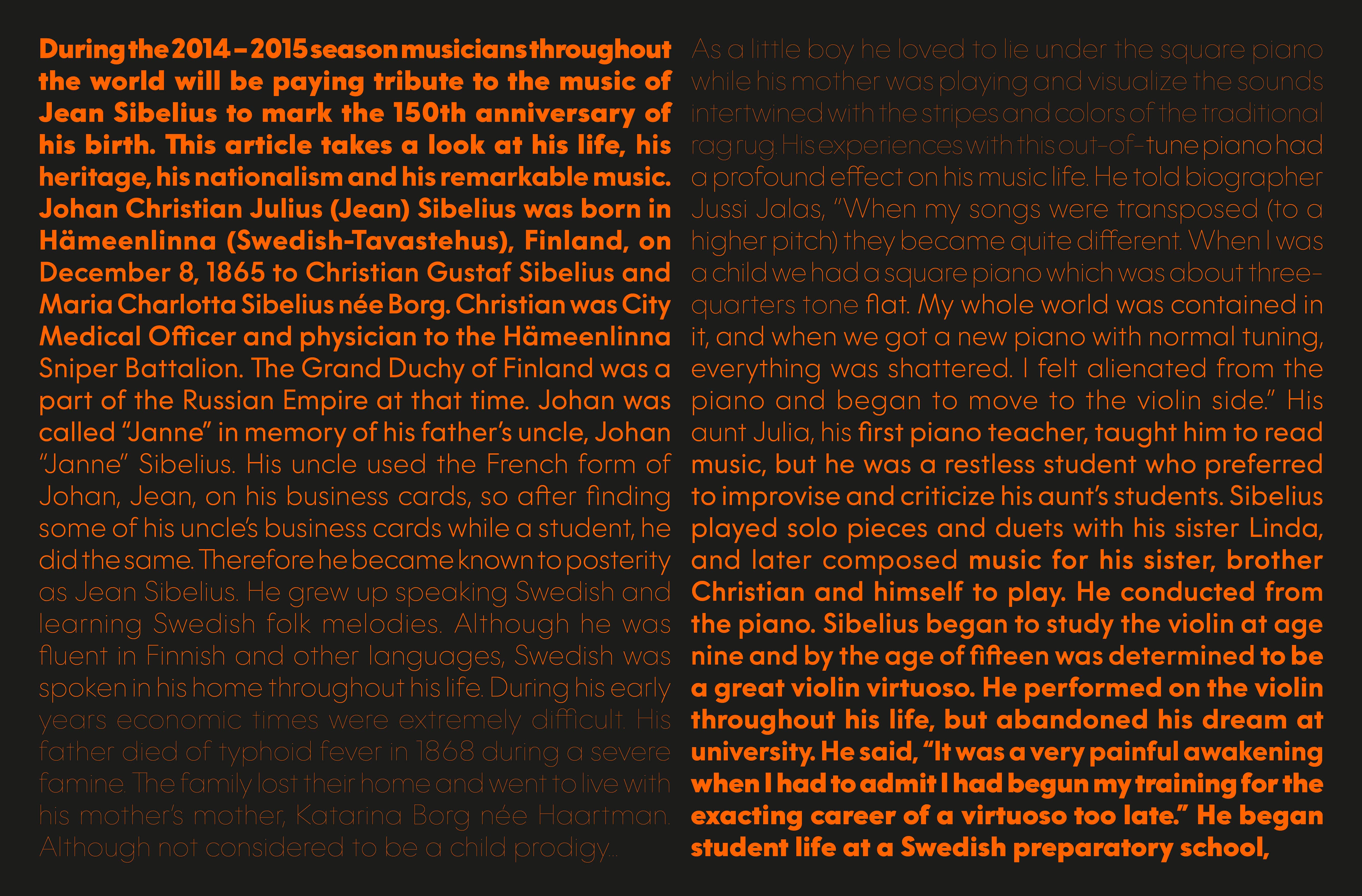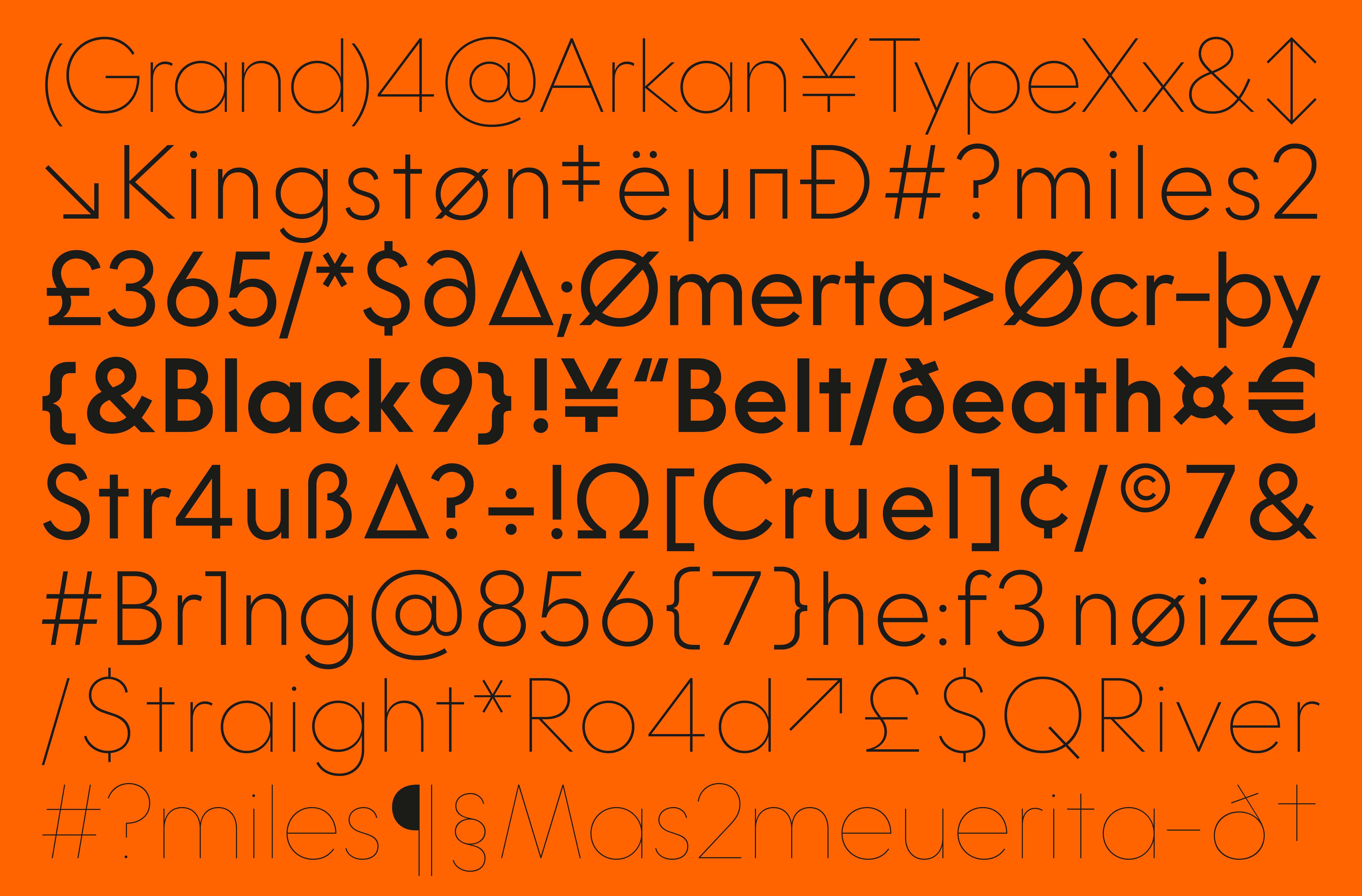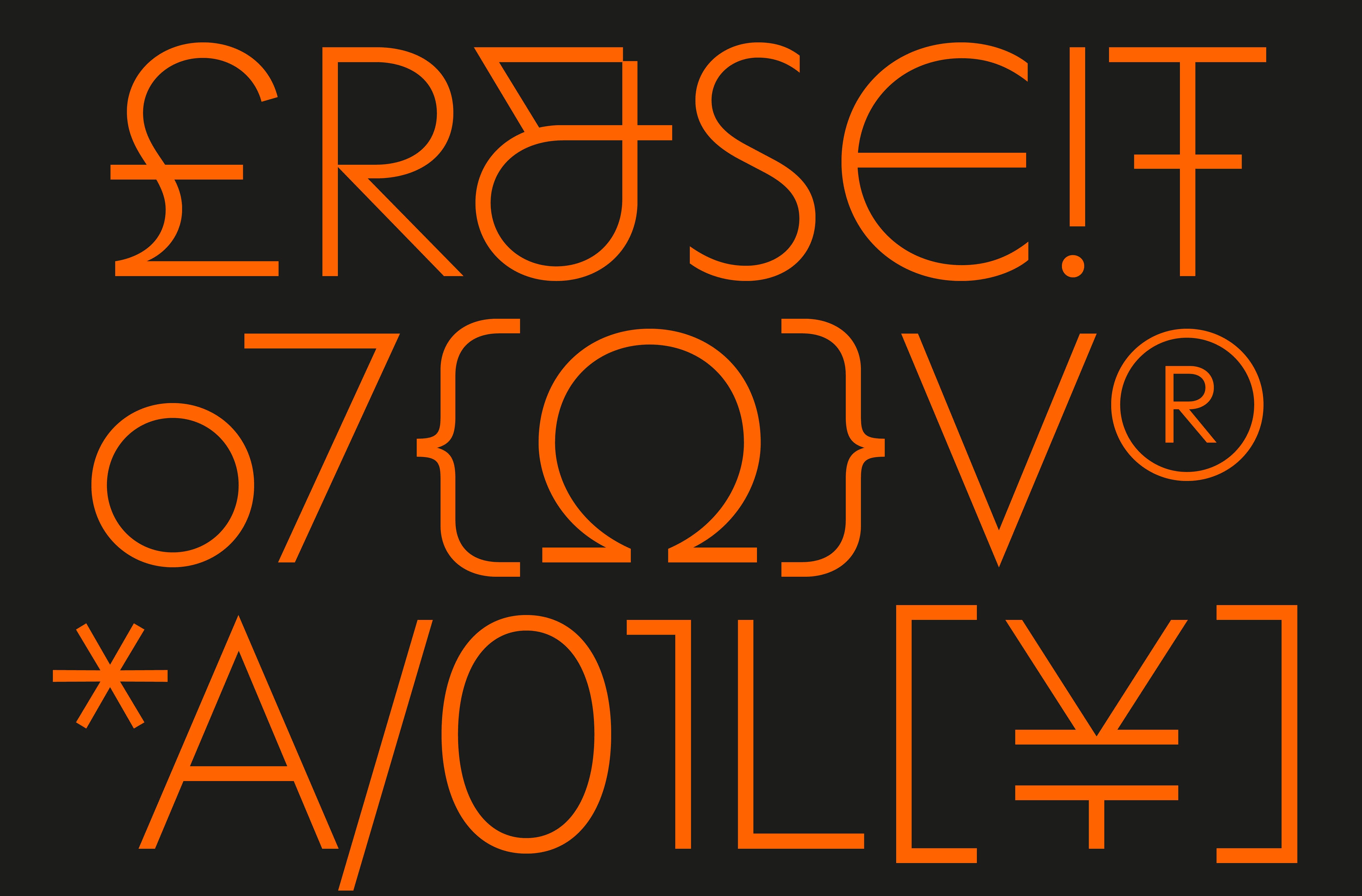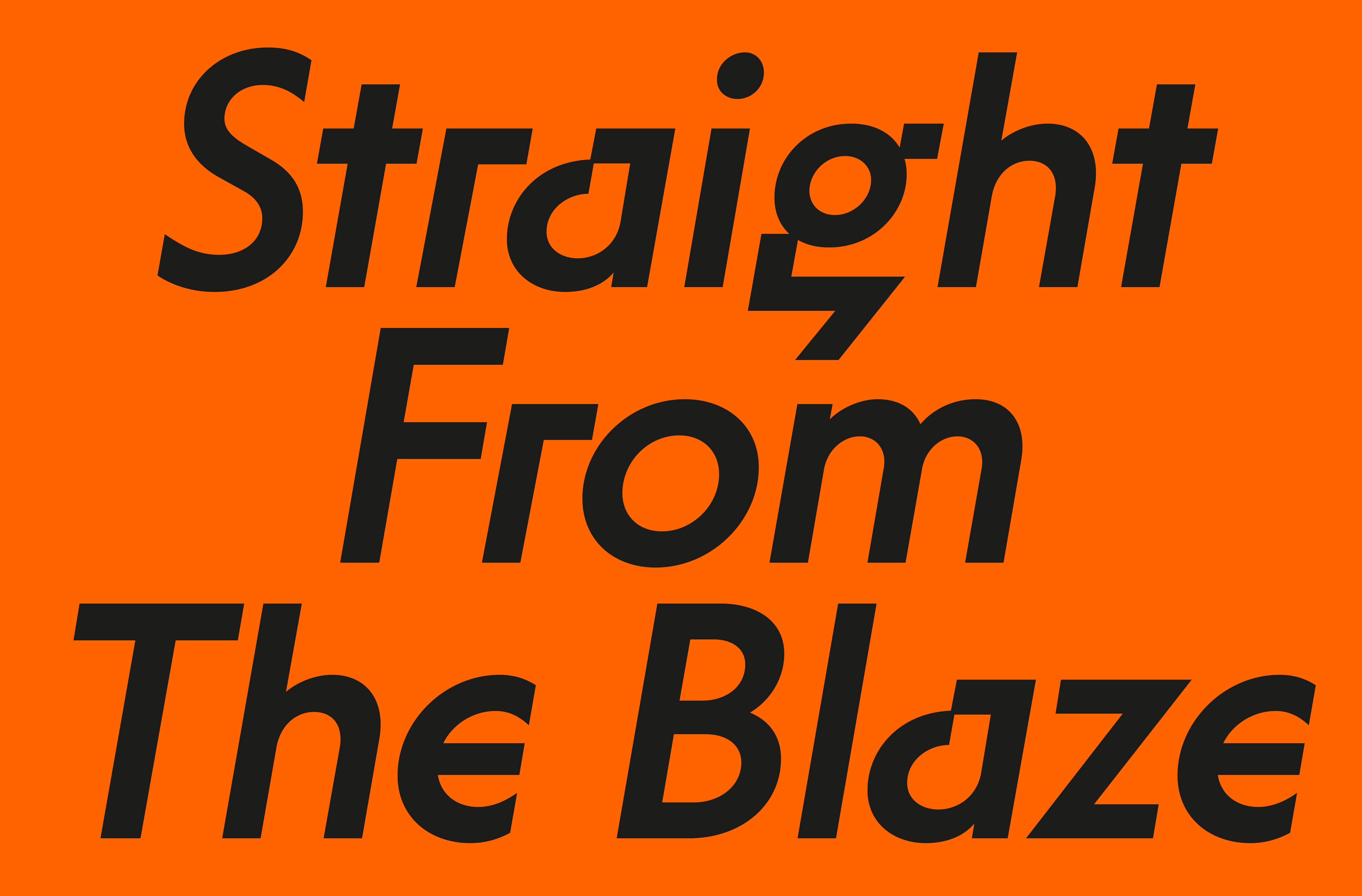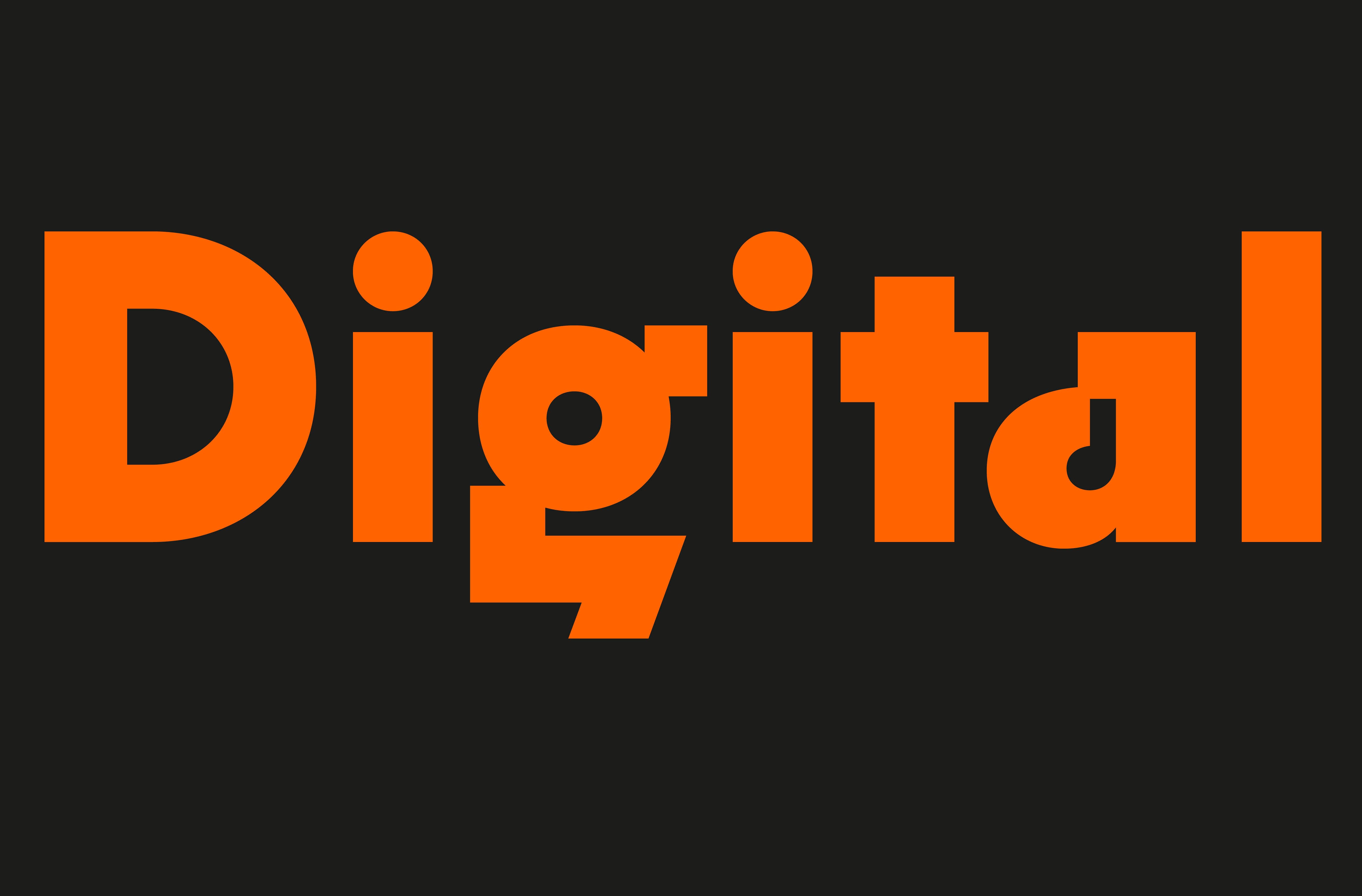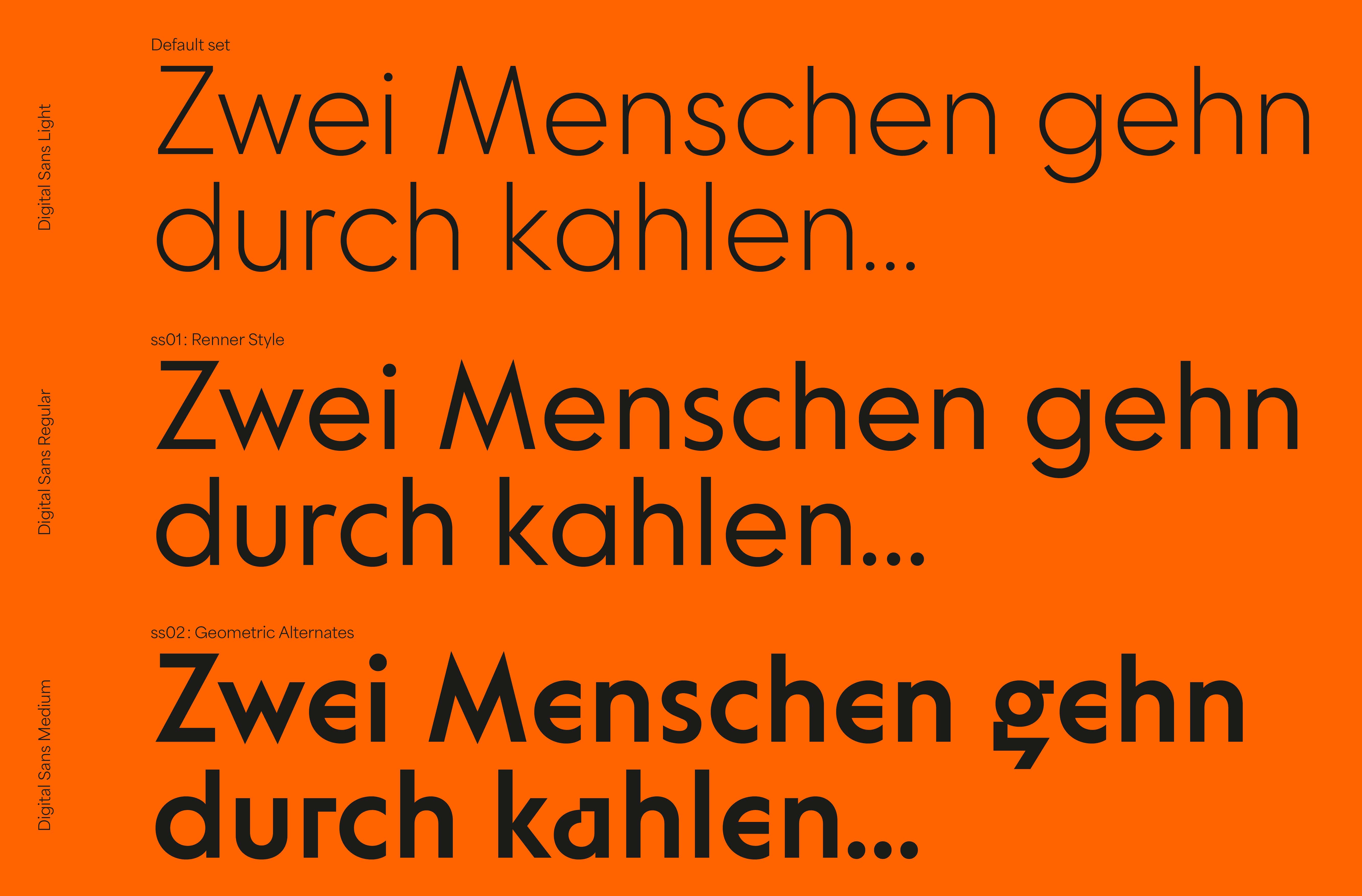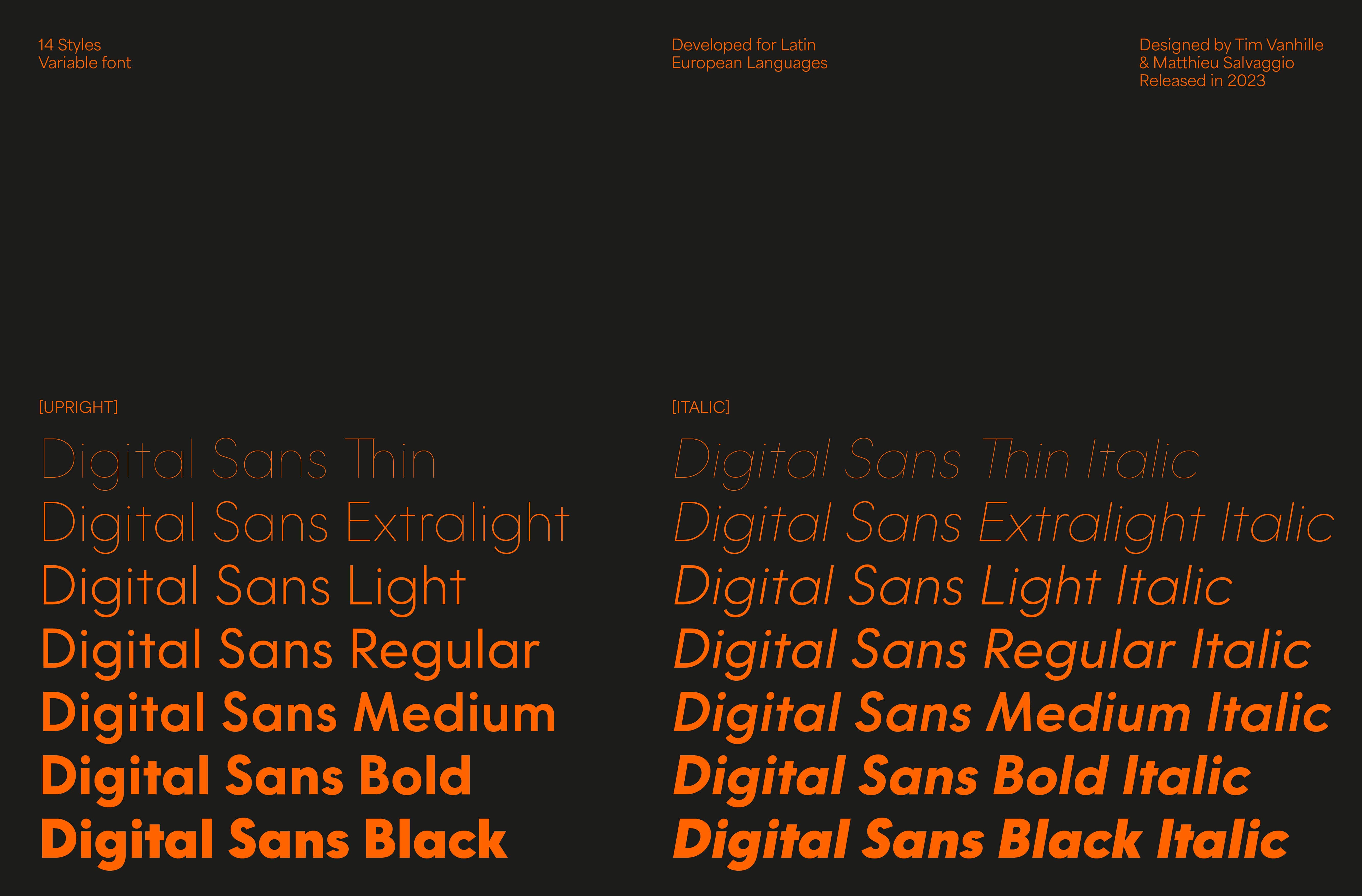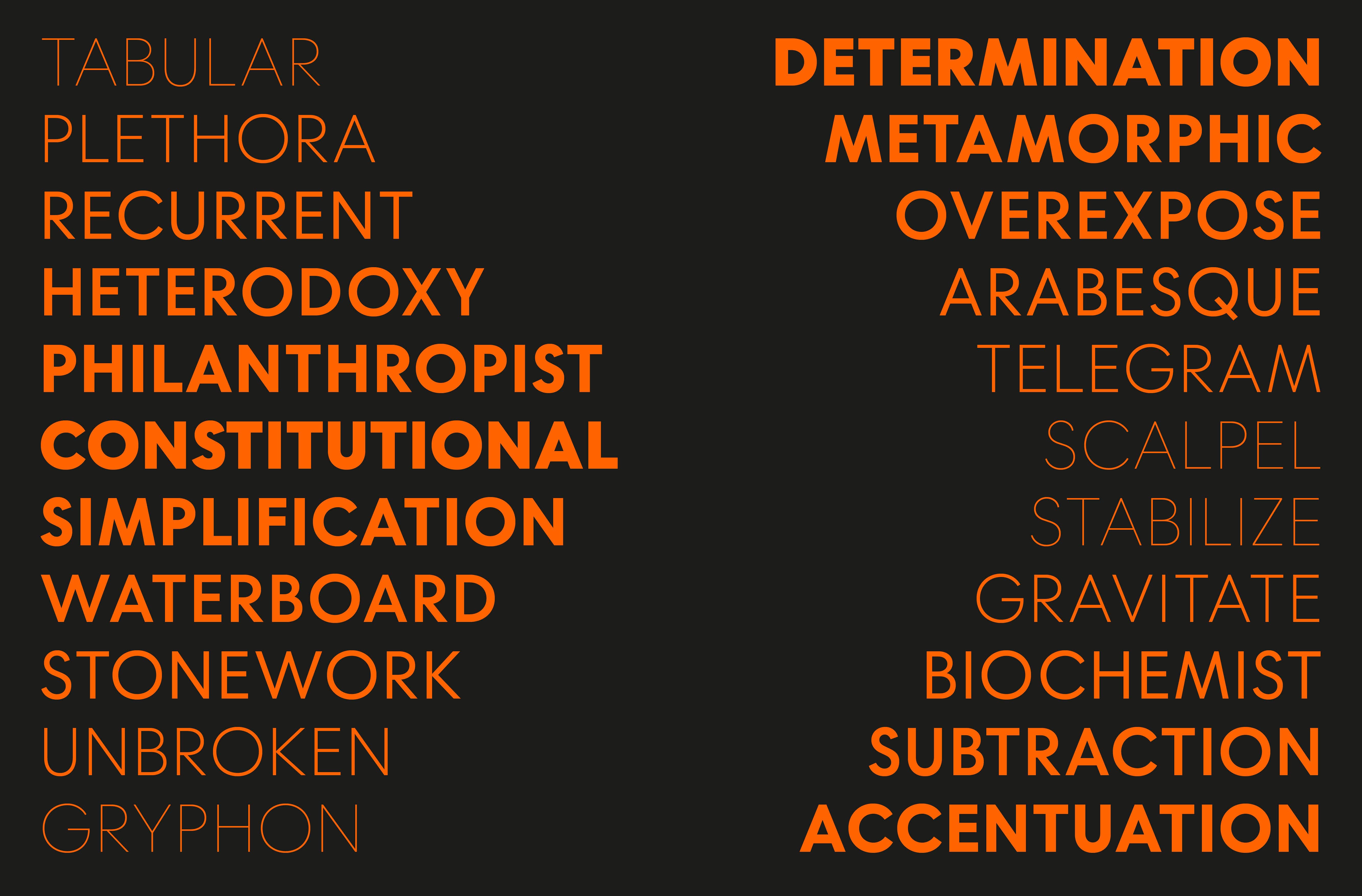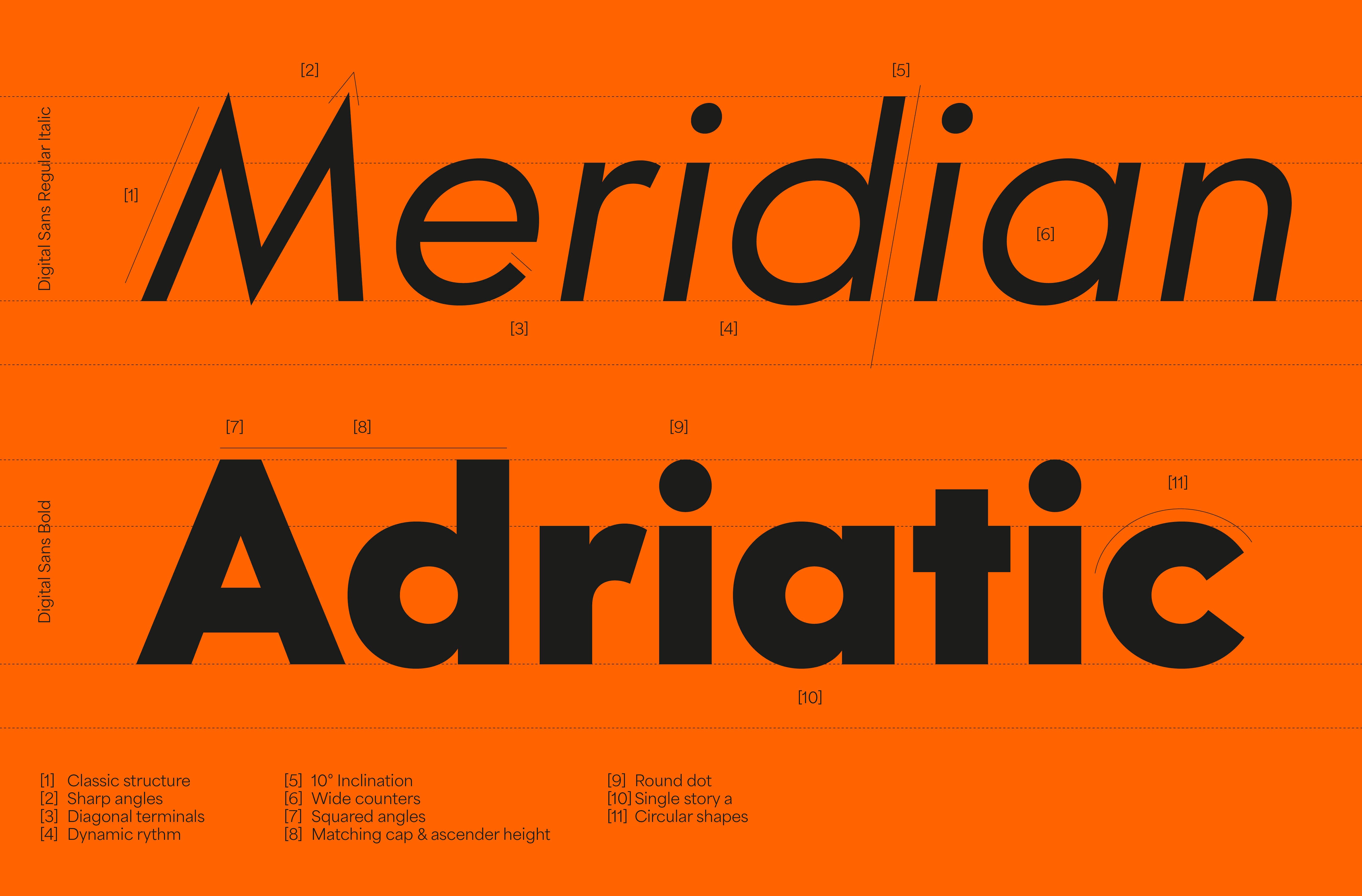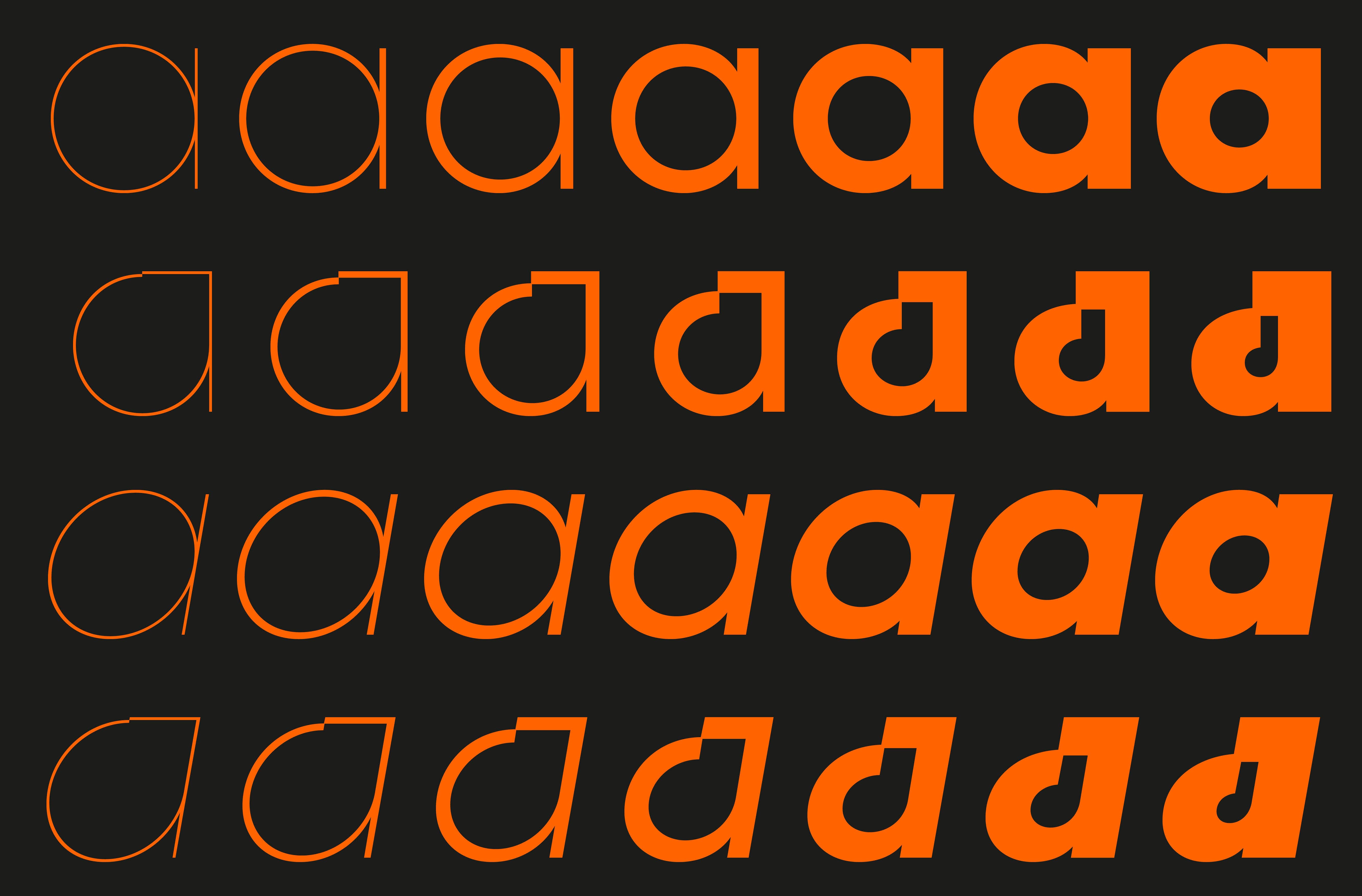
Digital Sans
Digital Sans is a timeless geometric sans inspired by the visionary work of Paul Renner, Futura. This flexible font family comes with 7 different weights and matching italics. From Thin to Heavy, designed to support a wide range of potential use from body text to headlines and/or logotype. Designed as a bridge between the 20's and today, Digital Sans is deeply rooted in the geometric style, yet it is not a mere contemporary interpretation of this classic of typeface history. This font family questions geometric systems to define its own language. It comes with a whole different set of alternate glyphs to make Digital Sans a playful and flexible tool. It can switch from a neutral default set with diagonal cuts to another with vertical cuts and sharp angles. Certains letters also come with constructed alternates to give a singular look to any text layout. Digital Sans is very flexible and can be modulated to have different voices and infuse different mood in your designs. It will do wanders in any heavy type uses on screens and printed mediums alike.
The shapes and forms of this geometric typeface make it an ideal choice for contemporary design projects. It has a boldness and simplicity that is timeless, making it a favorite for designers for decades. It is a great choice for a variety of design applications, from logos and branding to headlines and body text in print or digital formats. Geometric fonts, also known as modern fonts, have been around since the early 20th century and have been used to create many iconic logos, advertisements, and designs. In recent years, geometric fonts have been making a major comeback, appearing in more and more designs.
Geometric fonts are distinct in that they feature shapes and lines that are geometric in nature, often with a modern, minimalistic aesthetic.
Geometric fonts are a great choice for many designs. They are highly recognisable and can stand out from other font styles. They are also easy to read, making them perfect for readable text. Geometric fonts also have a strong visual impact, often creating an eye-catching effect. Additionally, geometric fonts can be used to create a sense of modernity and sophistication, perfect for branding or marketing materials.
When it comes to selecting a geometric font, there are a variety of options to choose from. Some geometric fonts are more traditional and feature lines and curves that are based on traditional typefaces. Others are more abstract, featuring different shapes and angles. Many geometric fonts come in both serif and sans serif styles, allowing designers to create a unique look.
Geometric fonts are a popular choice in the contemporary graphic design field, with their clean, simple shapes and modern aesthetic. These fonts are often sans-serif, meaning they do not have the decorative flourishes known as serifs that are found on many traditional fonts. This simplicity makes them highly legible and versatile, making them suitable for a wide range of design projects.
One of the key benefits of geometric fonts is that they can help to create a sense of order and structure in a design. The geometric shapes used in these fonts are often based on simple, mathematical principles, which can give a design a sense of logical, organized structure. This can be especially useful in design projects where clear, concise communication is important, such as in business or technical documents.
Geometric fonts are also highly adaptable and can be used in a variety of design styles. They can be combined with other fonts to create a more diverse and interesting design, or they can be used on their own to create a bold, modern statement. They can also be modified and customized to create unique, one-of-a-kind fonts that are tailored to a specific design project.
Overall, geometric fonts are a popular and versatile choice in the contemporary graphic design field. Their clean, simple shapes and logical structure make them highly legible and adaptable, making them suitable for a wide range of design projects.
Tim Vanhille , Matthieu Salvaggio